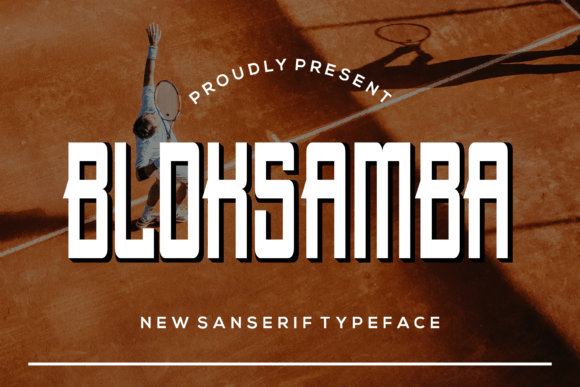
Introducing Bloksamba Font: The Perfect Sans Serif for Creative Projects
Are you a designer or crafter looking for a font that can add a touch of style to your creative projects? Look no further than Bloksamba Font, a sans serif font that is perfect for branding, social media, advertising, posters, flyers, and many other creative ideas. In this article, we’ll take a closer look at Bloksamba Font, its features, and how you can use it to elevate your designs.
What is Bloksamba Font?
Bloksamba Font is a modern sans serif font that is designed to be both clean and stylish. Its unique design makes it perfect for a wide range of creative projects, from branding and advertising to social media graphics and posters. The font is highly versatile, making it a great addition to any designer’s toolkit.
Key Features of Bloksamba Font
So, what makes Bloksamba Font so special? Here are some of its key features:
- Charming touch of style: Bloksamba Font has a unique design that adds a touch of style to any project. Its clean lines and modern aesthetic make it perfect for designs that need a bit of flair.
- Sans serif design: The font features a sans serif design, making it easy to read and perfect for digital applications.
- Highly versatile: Bloksamba Font can be used for a wide range of creative projects, from branding and advertising to social media graphics and posters.
How to Use Bloksamba Font
Bloksamba Font is perfect for a wide range of creative projects. Here are some ideas to get you started:
- Branding: Use Bloksamba Font to create a unique and stylish brand identity. Its clean design and charming touch of style make it perfect for logos, business cards, and other branding materials.
- Social media graphics: Create eye-catching social media graphics with Bloksamba Font. Its modern aesthetic and easy-to-read design make it perfect for Facebook posts, Instagram stories, and Twitter headers.
- Advertising: Use Bloksamba Font to create stylish and effective advertisements. Its clean design and charming touch of style make it perfect for print ads, digital ads, and billboards.
- Posters and flyers: Create eye-catching posters and flyers with Bloksamba Font. Its bold design and modern aesthetic make it perfect for promoting events, products, and services.
Why Choose Bloksamba Font?
So, why should you choose Bloksamba Font for your creative projects? Here are some reasons:
- Unique design: Bloksamba Font has a unique design that sets it apart from other sans serif fonts. Its charming touch of style makes it perfect for designs that need a bit of flair.
- High-quality design: The font is designed to be high-quality and easy to read, making it perfect for digital applications.
- Versatility: Bloksamba Font is highly versatile, making it perfect for a wide range of creative projects.
| Font Name | Bloksamba Font |
| Author | riotama85 |
In conclusion, Bloksamba Font is a sans serif font that is perfect for creative projects. Its unique design, charming touch of style, and high-quality design make it perfect for branding, social media, advertising, posters, flyers, and many other creative ideas. Whether you’re a designer or crafter, Bloksamba Font is a great addition to your toolkit.